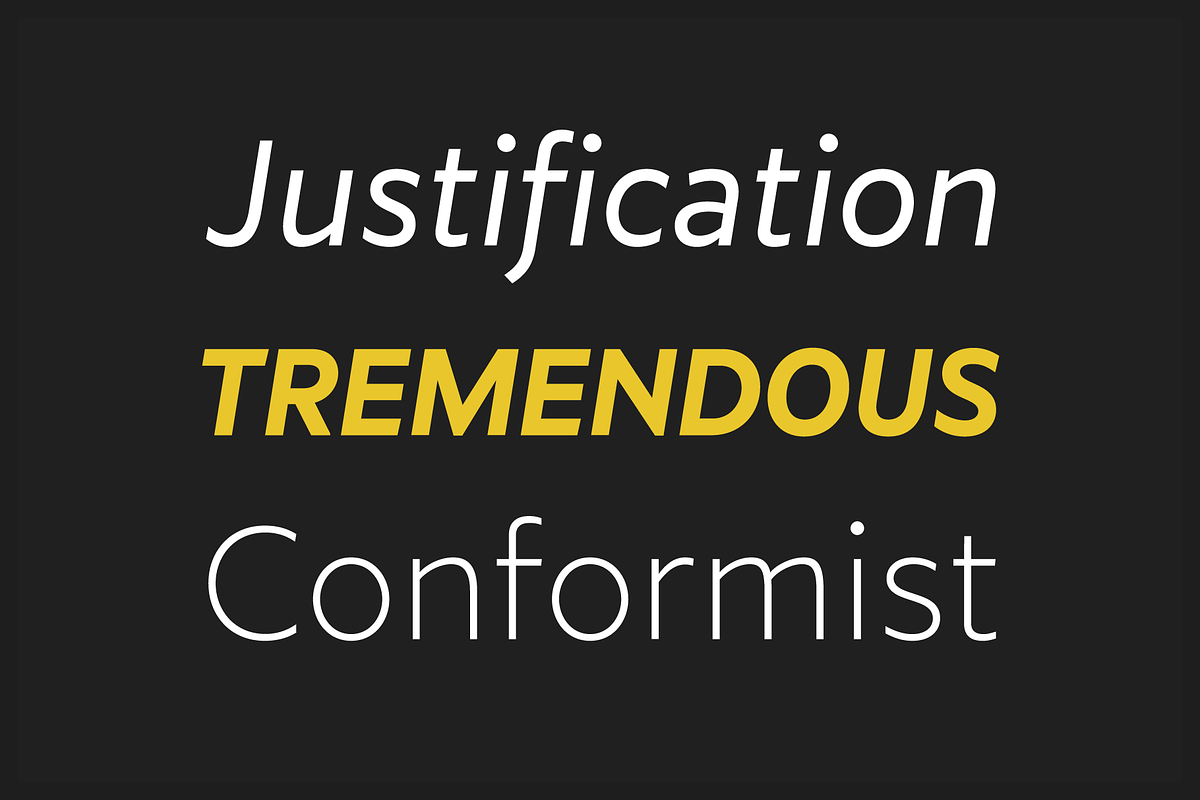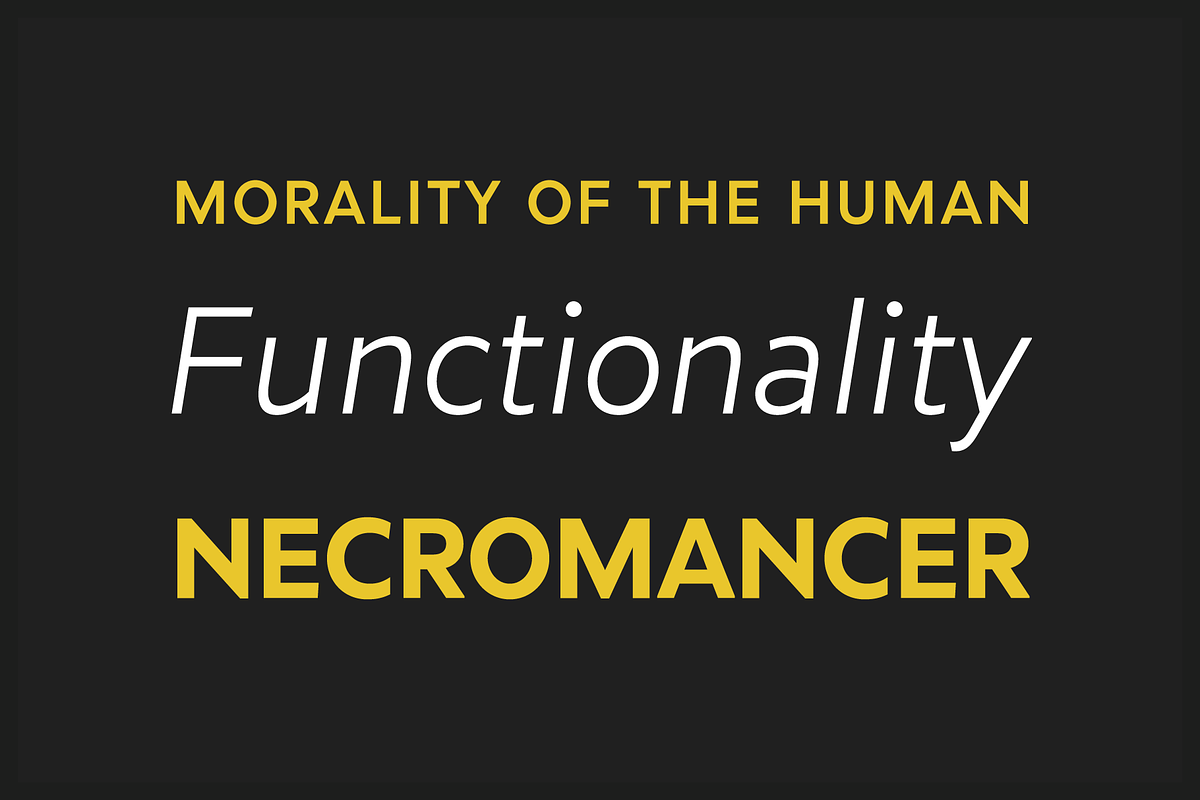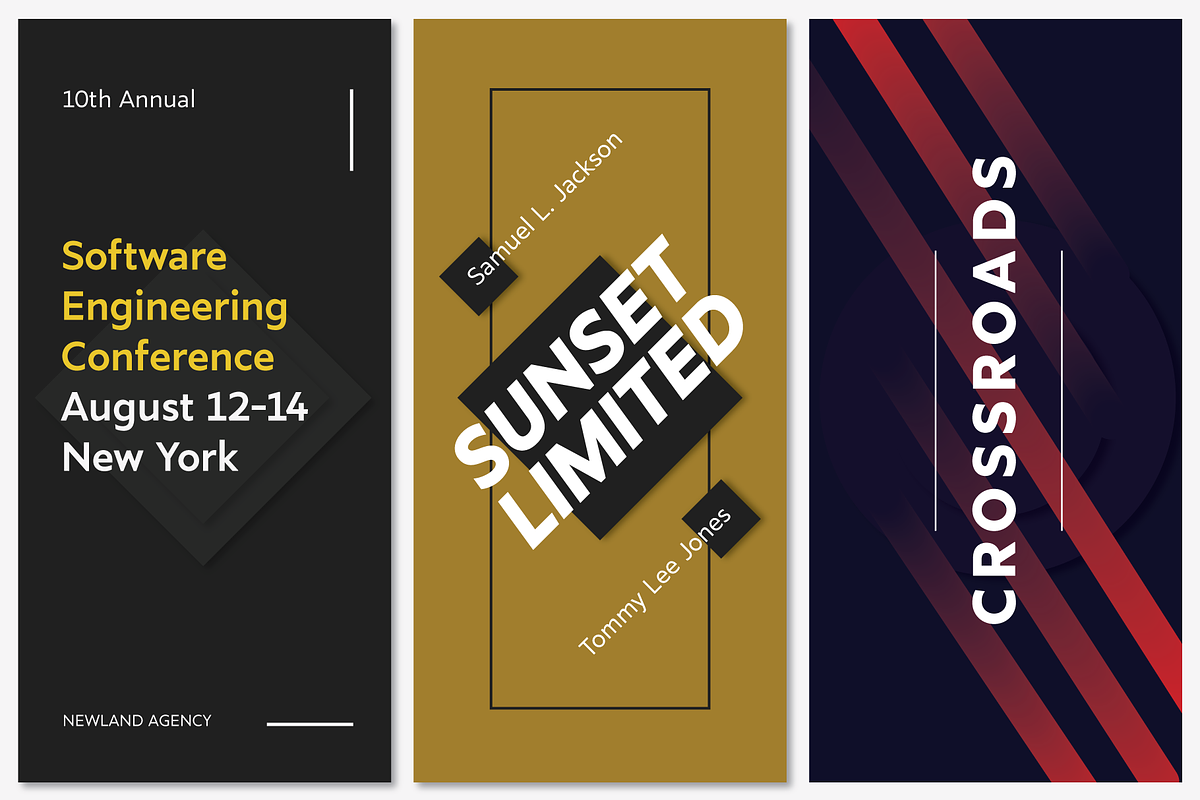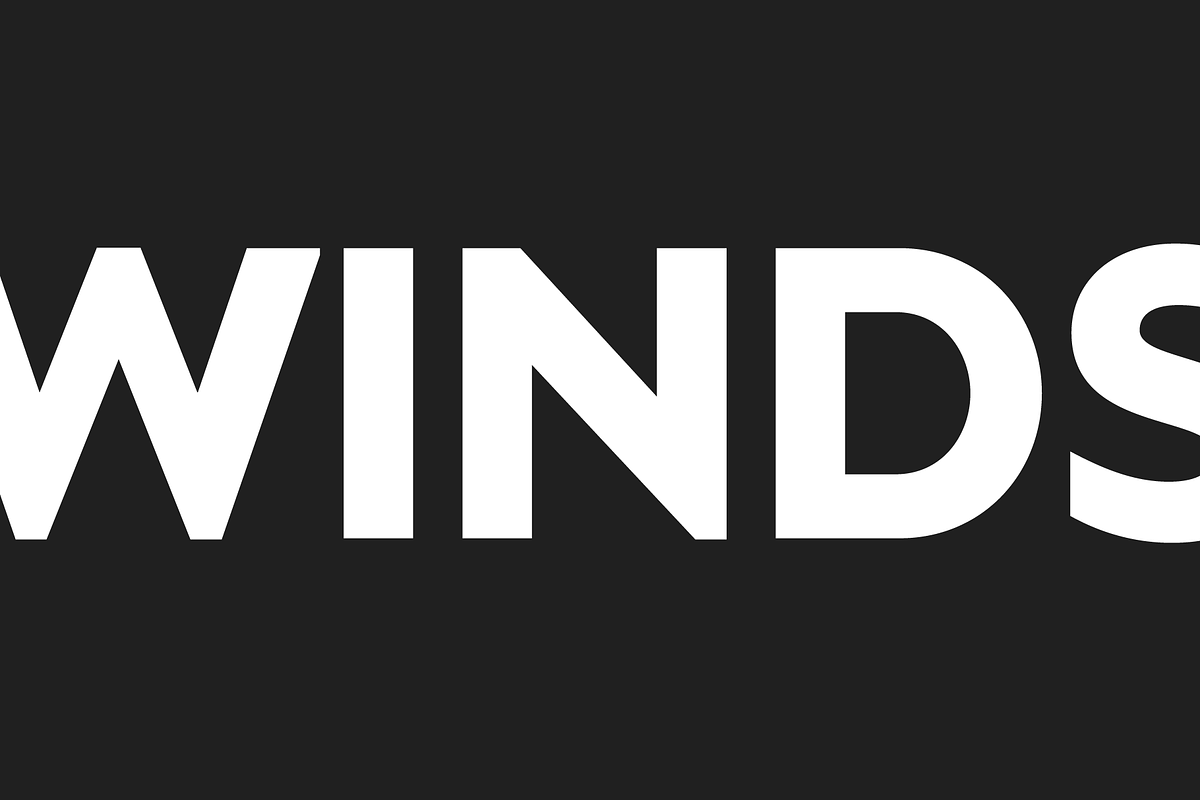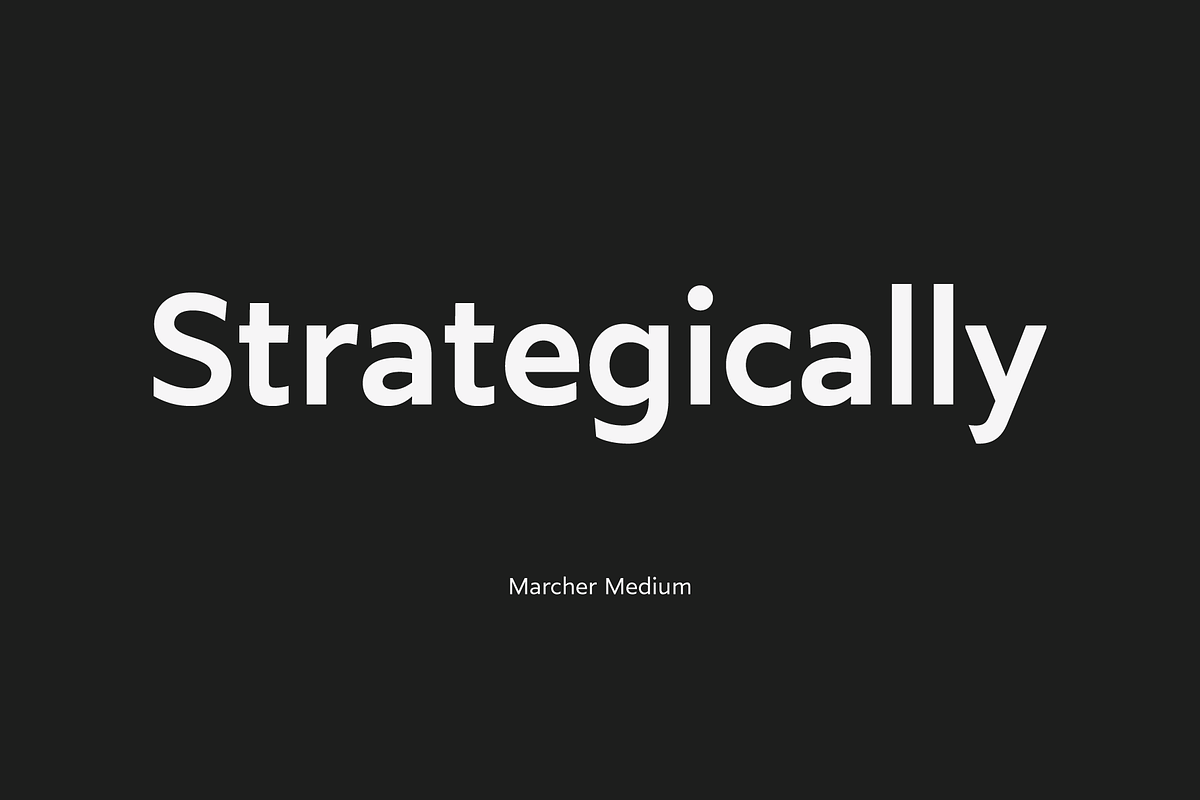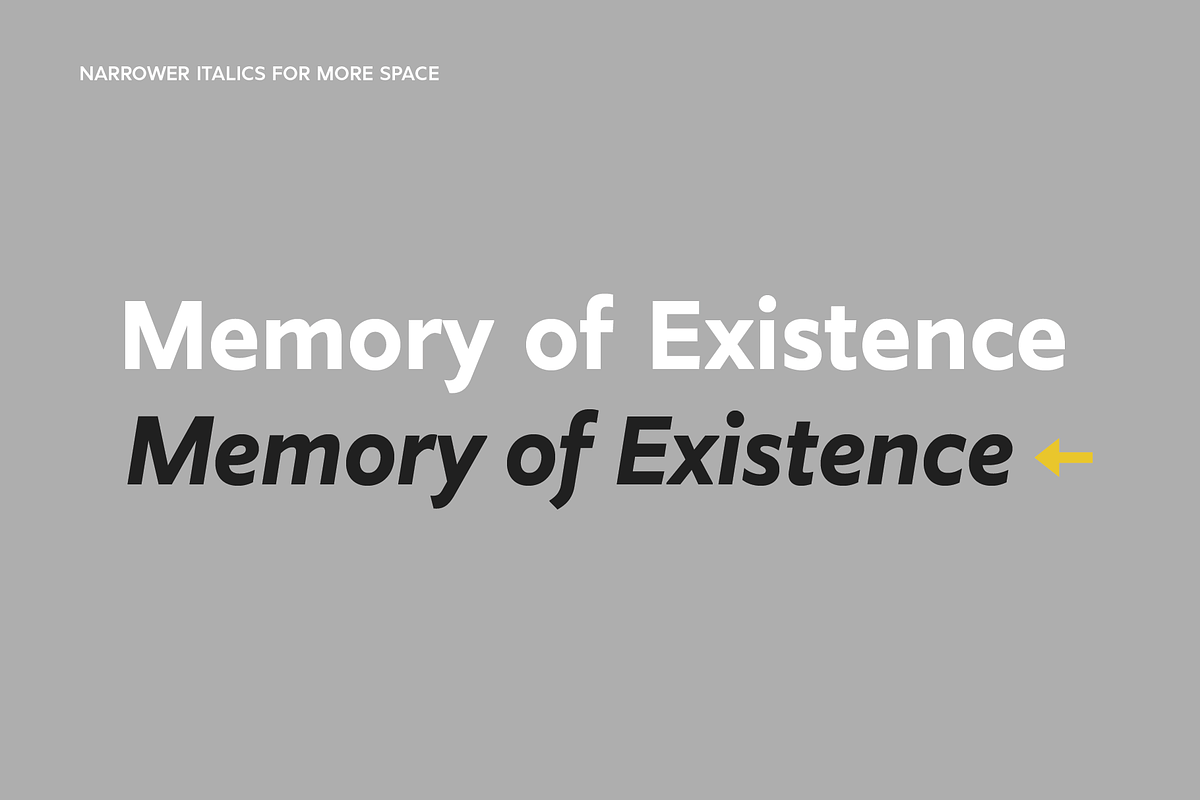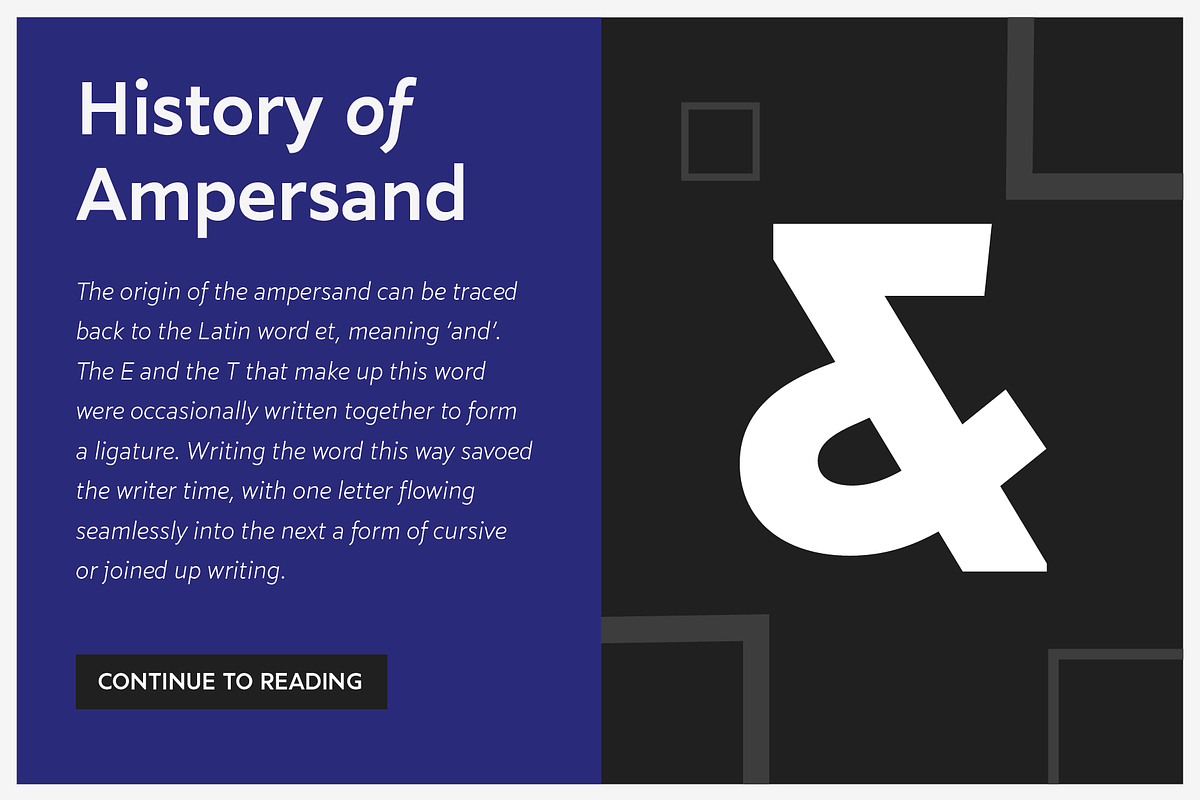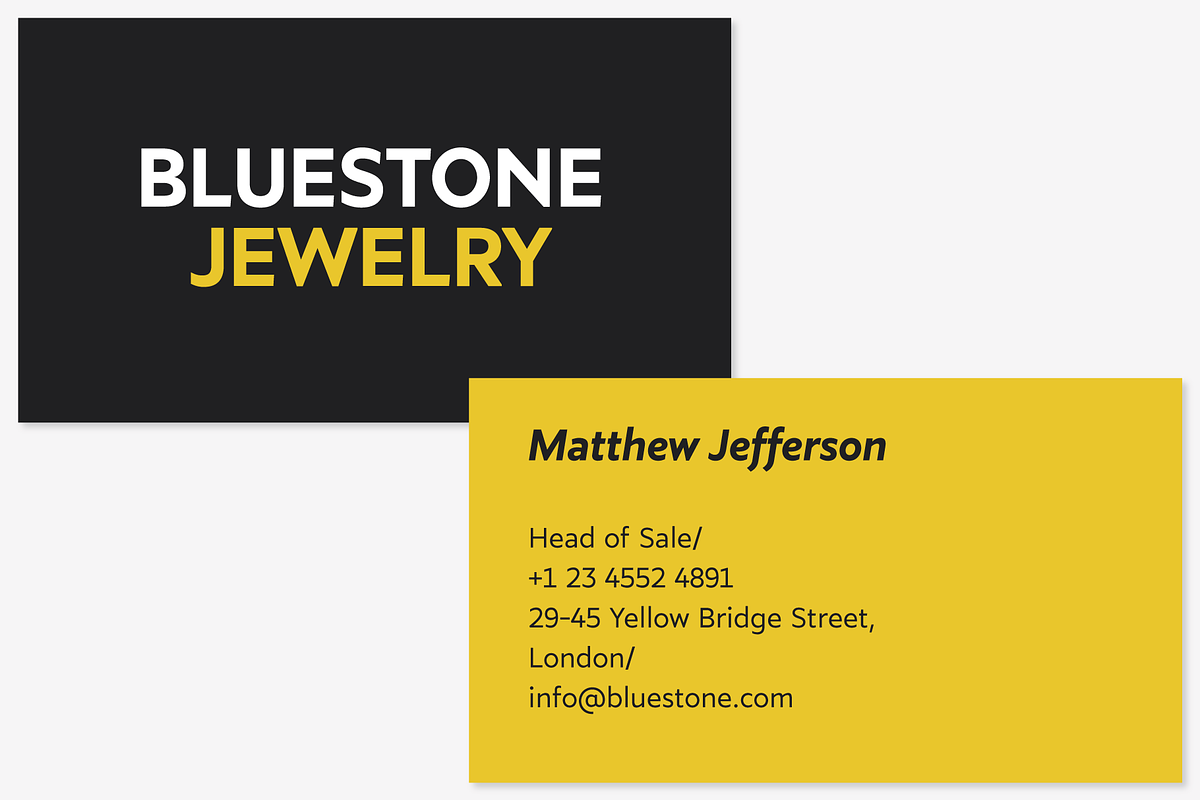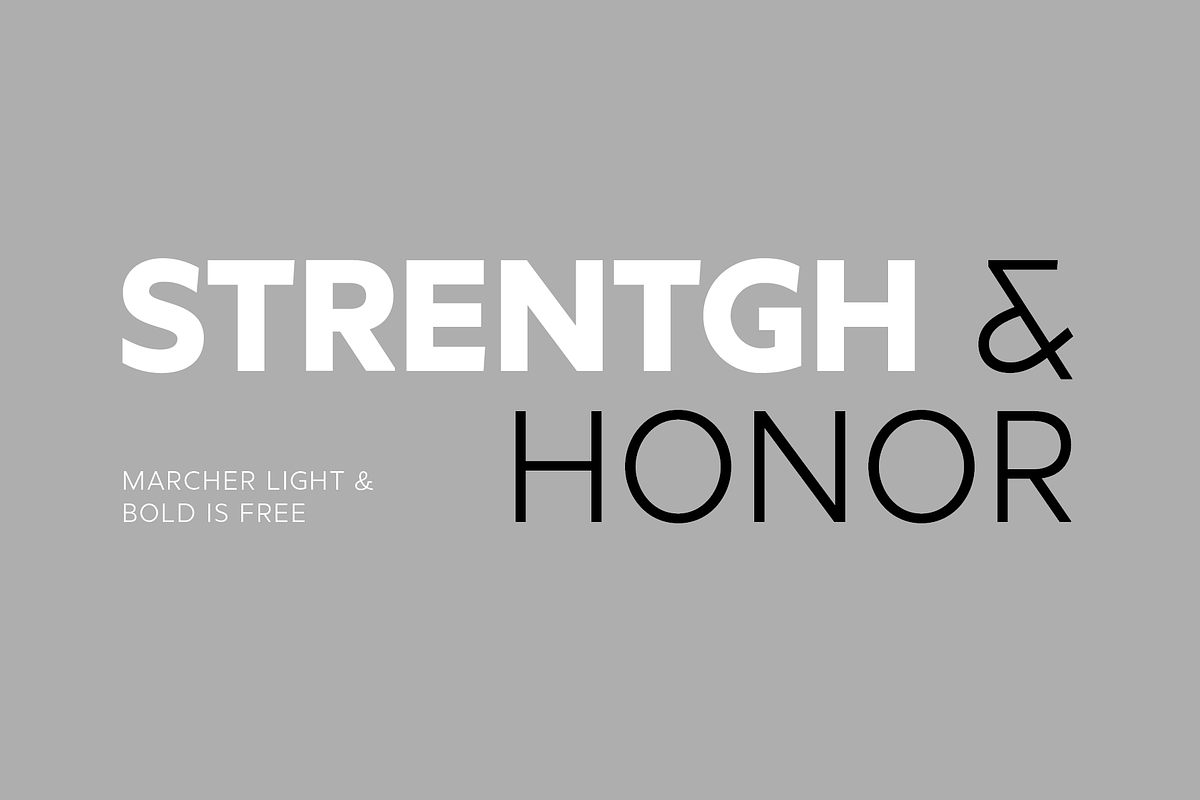
Marcher is a modern display typefamily in 10 weights plus matching true italics. Designed for an impactful and stylish visual impression especially on logos and posters. Marcher has semi humanist and semi geometric details and extensive language support.
Verson 1.2 - Marcher has now Opentype features like; fractions, numerators, denominators, tabular numbers, stylistic alternates and 12 stylistic sets.